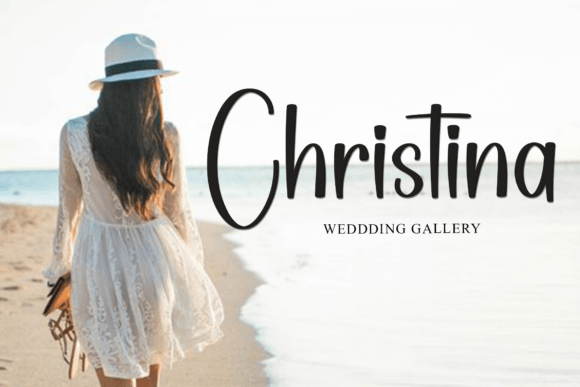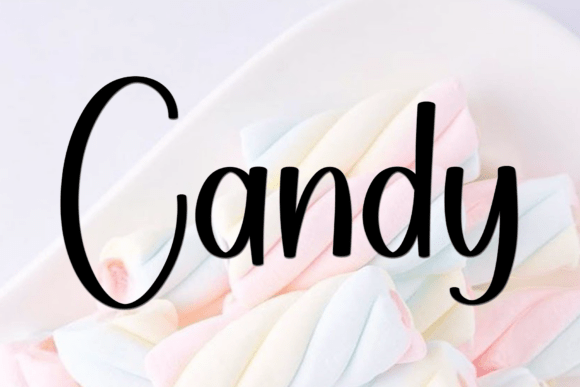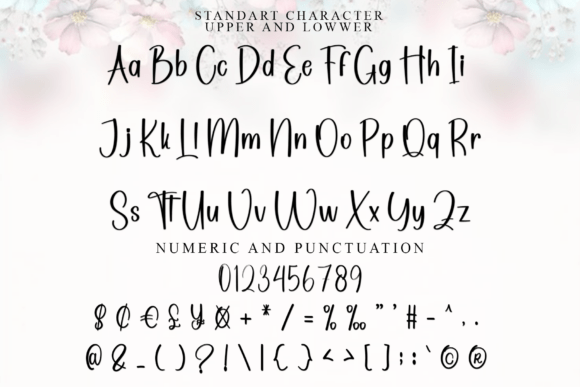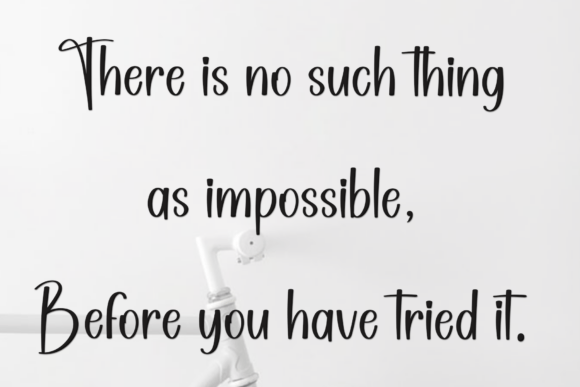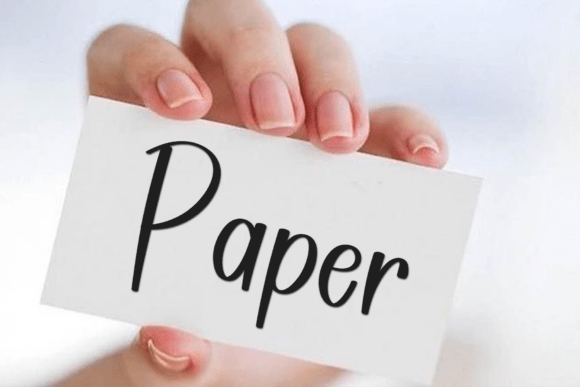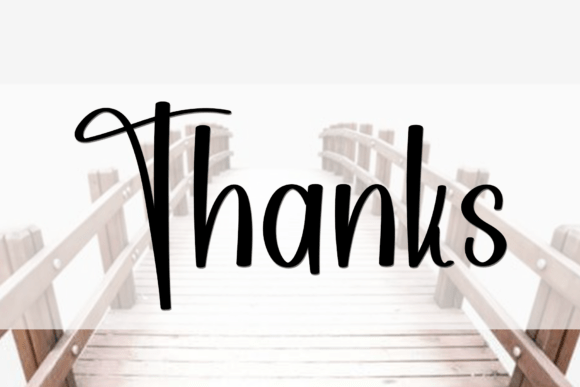
Introducing Digital Homework Font: A Festive and Merry Typeface for the Holiday Season
Are you looking for a font that embodies the spirit of the holiday season? Look no further than Digital Homework Font! This delightful typeface is designed to bring a touch of magic to your designs, making it perfect for greeting cards, gift tags, and holiday-themed projects. With its decorative elements and whimsical flair, Digital Homework Font is sure to add a cheerful and nostalgic ambiance to your words.
Digital Homework Font is a carefully crafted typeface that captures the essence of the holiday season. Its unique design combines decorative elements with a playful, whimsical flair, creating a font that is both festive and fun. Whether you’re designing a holiday greeting card, a gift tag, or a festive-themed project, Digital Homework Font is the perfect choice.
Digital Homework Font is specifically designed with holiday projects in mind. Its cheerful and nostalgic ambiance makes it perfect for a wide range of applications, including:
- Greeting cards: Create beautiful and festive holiday greeting cards that will delight your friends and family.
- Gift tags: Add a personal touch to your gifts with custom gift tags featuring Digital Homework Font.
- Holiday-themed projects: From festive banners to holiday-themed party invitations, Digital Homework Font is the perfect choice for any holiday project.
Digital Homework Font is PUA (Private Use Area) encoded, which means that you can access all of the amazing glyphs and ligatures with ease. This encoding allows you to use the font’s decorative elements, such as swashes and flourishes, without the need for complex software or technical expertise.
Key Features of Digital Homework Font
So, what makes Digital Homework Font so special? Here are just a few of its key features:
- Festive and merry design: Perfect for holiday projects and designs.
- Decorative elements: Adds a touch of enchantment to your designs with its unique decorative elements.
- Whimsical flair: Brings a playful and nostalgic ambiance to your words.
- PUA encoded: Easy access to all glyphs and ligatures.
Why Choose Digital Homework Font?
With so many fonts to choose from, why should you choose Digital Homework Font? Here are just a few reasons:
- Unique design: Digital Homework Font offers a unique and festive design that will set your projects apart.
- Easy to use: With its PUA encoding, Digital Homework Font is easy to use, even for those with limited technical expertise.
- Versatile: Perfect for a wide range of holiday projects and designs.
In conclusion, Digital Homework Font is a festive and merry typeface that is perfect for holiday projects and designs. With its decorative elements, whimsical flair, and PUA encoding, it’s easy to add a touch of enchantment to your words. Whether you’re a designer or crafter, Digital Homework Font is a great choice for anyone looking to create beautiful and festive holiday designs.